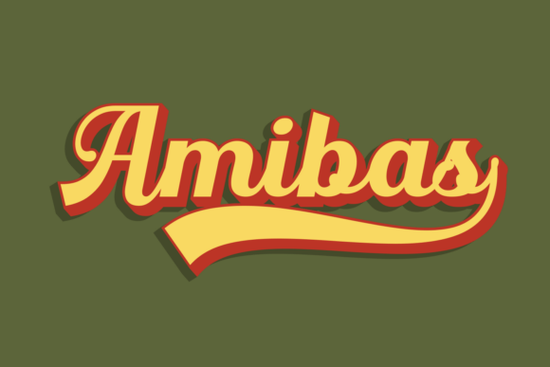
If you're looking for a typeface that channels bold 70s and 80s energy, Amibas is worth a closer look. This retro-inspired script font from Creative Fabrica combines thick letterforms, dynamic swashes, and a bold drop shadow effect that makes it a strong choice for apparel branding, retro posters, signage, and headline graphics. Whether you run a print-on-demand shop or just love designing for fun, this font brings a sporty, nostalgic vibe that's hard to ignore.
What Makes Amibas Stand Out from Other Retro Fonts?
Plenty of script fonts claim a retro feel, but Amibas backs it up with real character. The letterforms are thick and confident, with strong curves that echo classic baseball-style typography. The built-in drop shadow effect adds depth without extra design work, and the swashes give each word a sense of motion.
Here's what sets it apart:
- Bold drop shadow effect adds a layered, 3D look right out of the box
- Dynamic swashes create movement and energy in headlines
- Classic tail on the final letter gives that signature baseball-card feel
- Thick, sporty letterforms designed for impact at any size
If you've explored other script fonts like the charming Amberly Route typeface or the bold Rotherdams option, you'll notice Amibas leans harder into the sporty, vintage logo space rather than delicate calligraphy or wedding styling.
What Can You Use This Font For?
This font works well wherever you need a strong, retro-first impression. Some popular uses include:
- T-shirt and apparel designs especially for vintage sports or throwback collections
- Retro poster art concert posters, event flyers, and wall art
- Signage and storefront graphics for shops with a nostalgic theme
- Social media graphics bold headlines that stop the scroll
- Logo design particularly for brands with an athletic or classic American feel
- Greeting cards and invitations when you want something more playful than a traditional script
For crafters and small business owners selling on platforms like Etsy or Redbubble, a display font like Amibas can help you create standout product mockups without spending hours on custom lettering.
How Does It Compare to Other Script Fonts?
Script fonts cover a wide range, and the best choice always depends on your project. If you're working on something softer or more elegant, a preppy writing style or a floral-inspired script might be a better fit. For gothic or moody aesthetics, you might prefer something like the Wednesday typeface.
But when the brief calls for energy, attitude, and a clear throwback vibe, Amibas does the job. Its combination of bold weight, shadow effects, and sporty swashes puts it in a category that's especially useful for designers working across apparel, branding, and print-on-demand products.
Font Pairing Ideas
To get the most out of Amibas, try pairing it with:
- A clean sans-serif for body text (like Montserrat or Bebas Neue)
- A simple slab serif for supporting headlines
- A minimal geometric font for product descriptions or subheadings
Using Amibas as the hero font and keeping everything else simple helps the retro character shine without making your design feel cluttered.
- Graphic designers working on poster, signage, or packaging projects
If your designs call for a vintage sports feel or 70s-inspired energy, this font delivers without requiring extra effects or editing on your part.
Start by testing Amibas on one project a single T-shirt design or social media graphic so you can see how the swashes and shadow effect work in your own layout before rolling it into a larger collection.